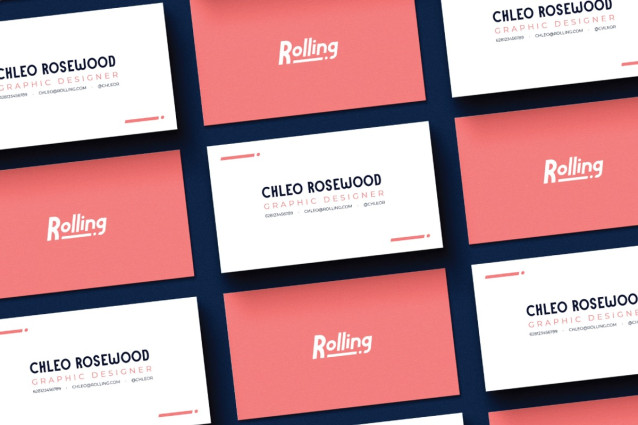
Gotto Font
Gotto Font, the playful Sans-serif font with an italic twist and multilingual support. Perfect for logos that want to stand out from the crowd. Let Gotto bring some fun and personality to your next design project!